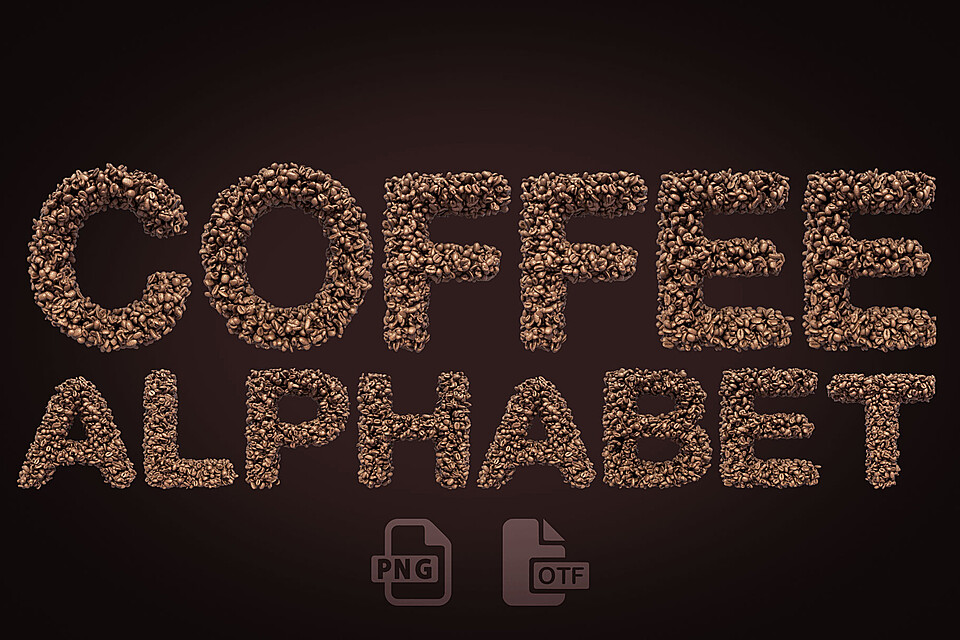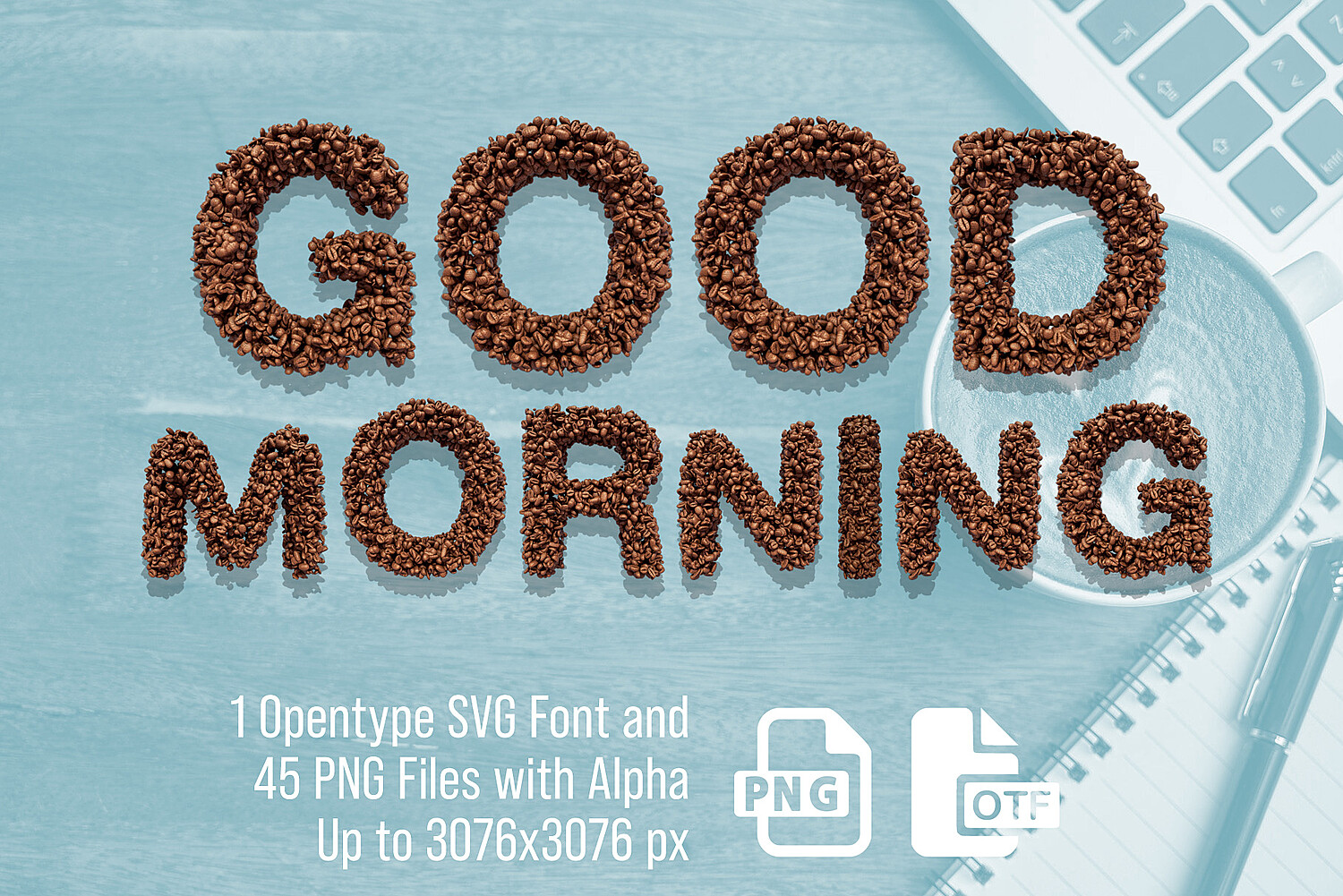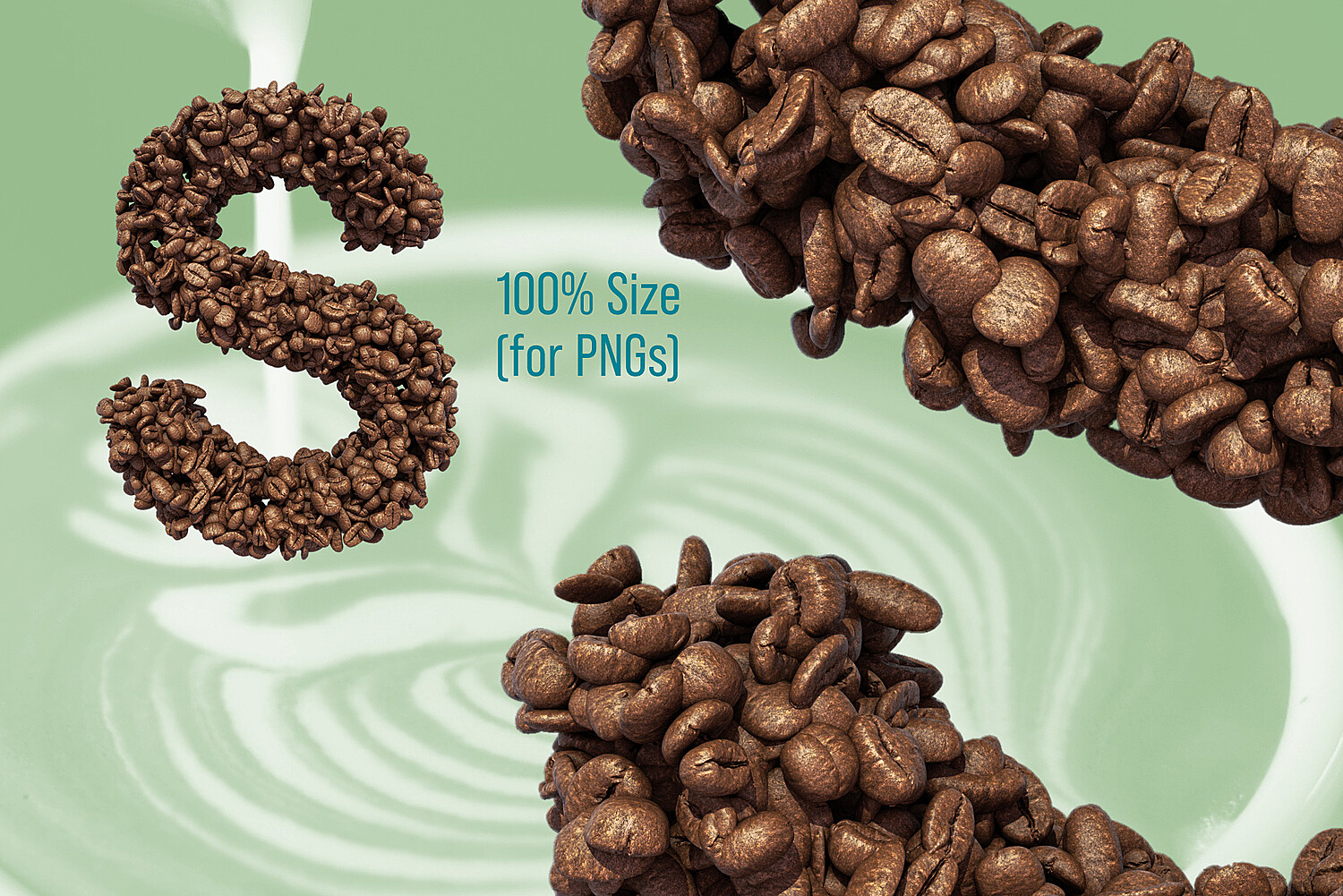
3D Coffee Beans Font and PNGs
Each letter is modelled and rendered in a 3D Application, also converted into an Opentype SVG (Color Font)
Basic western uppercase letters
Basic Punctuation and Symbols
Numbers